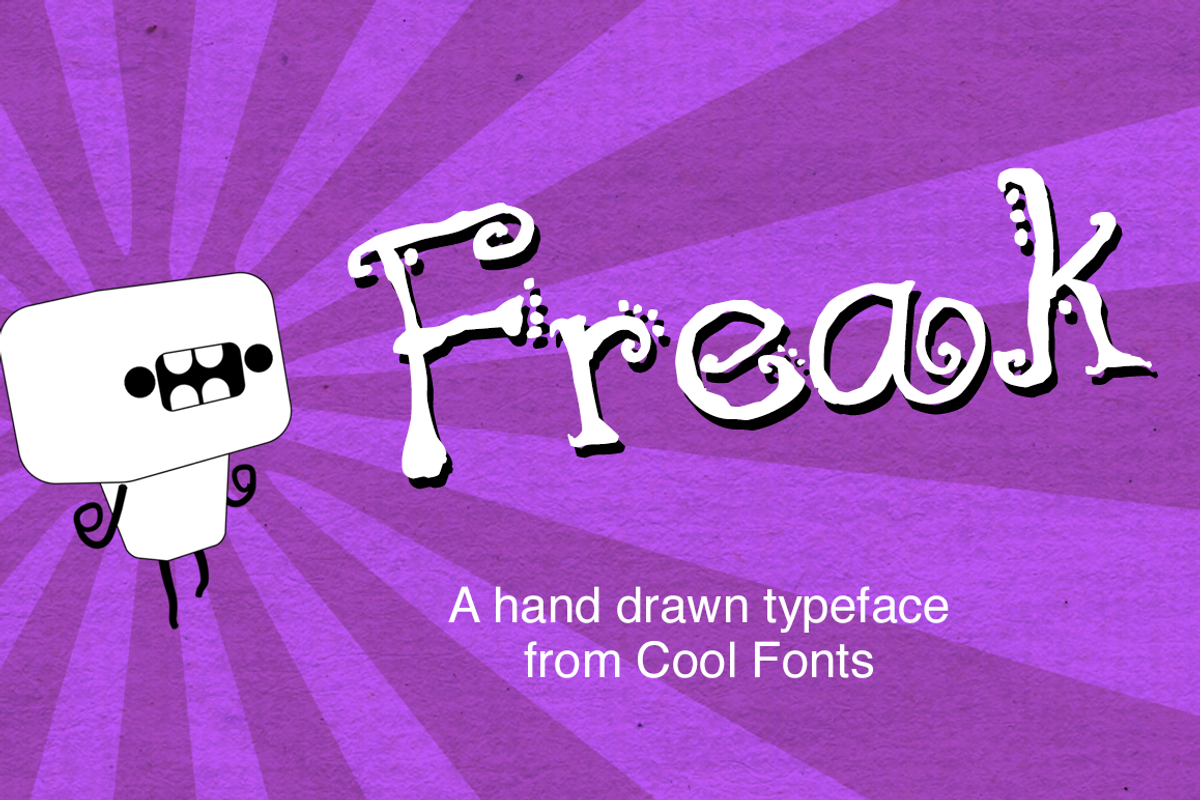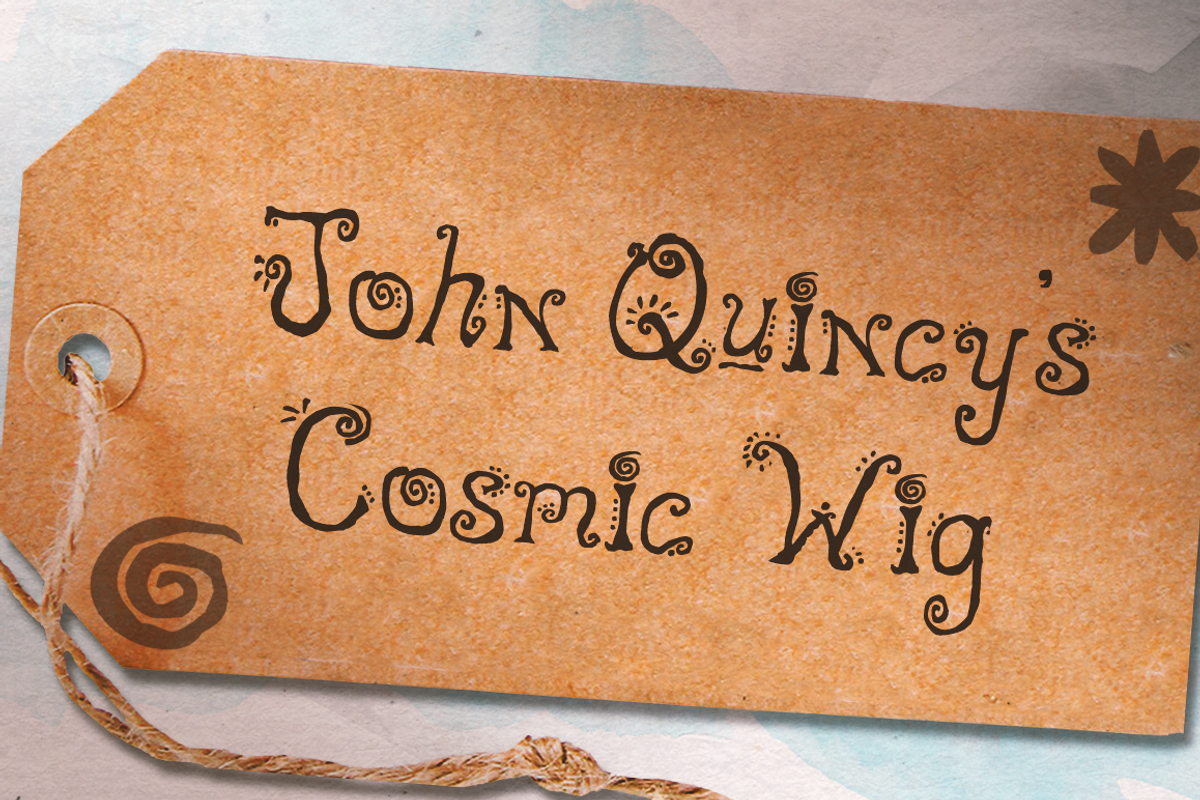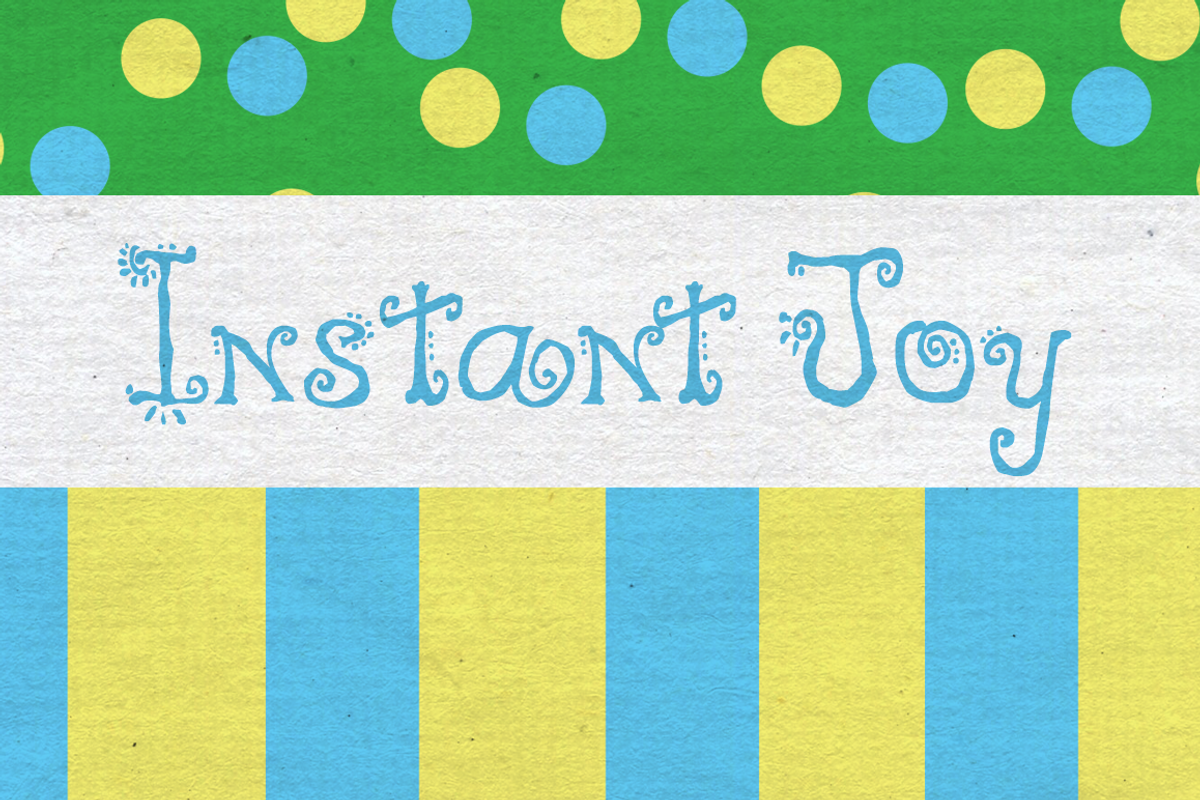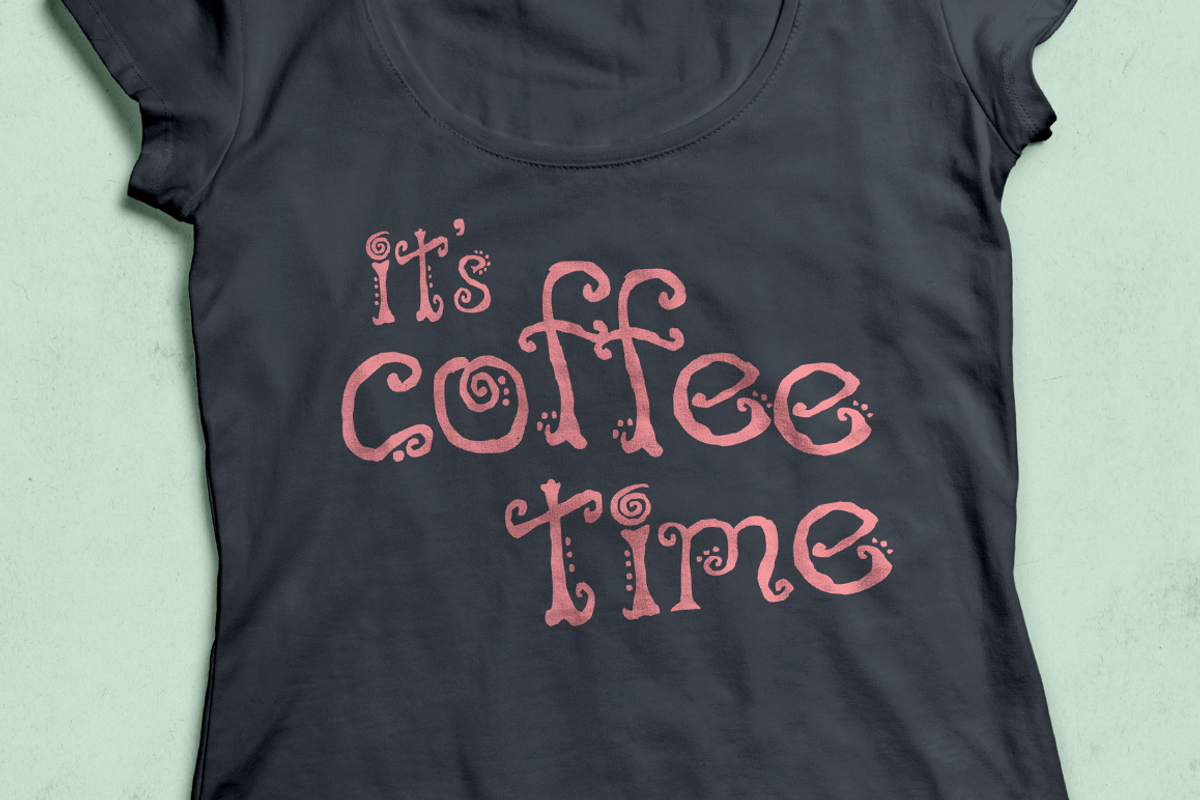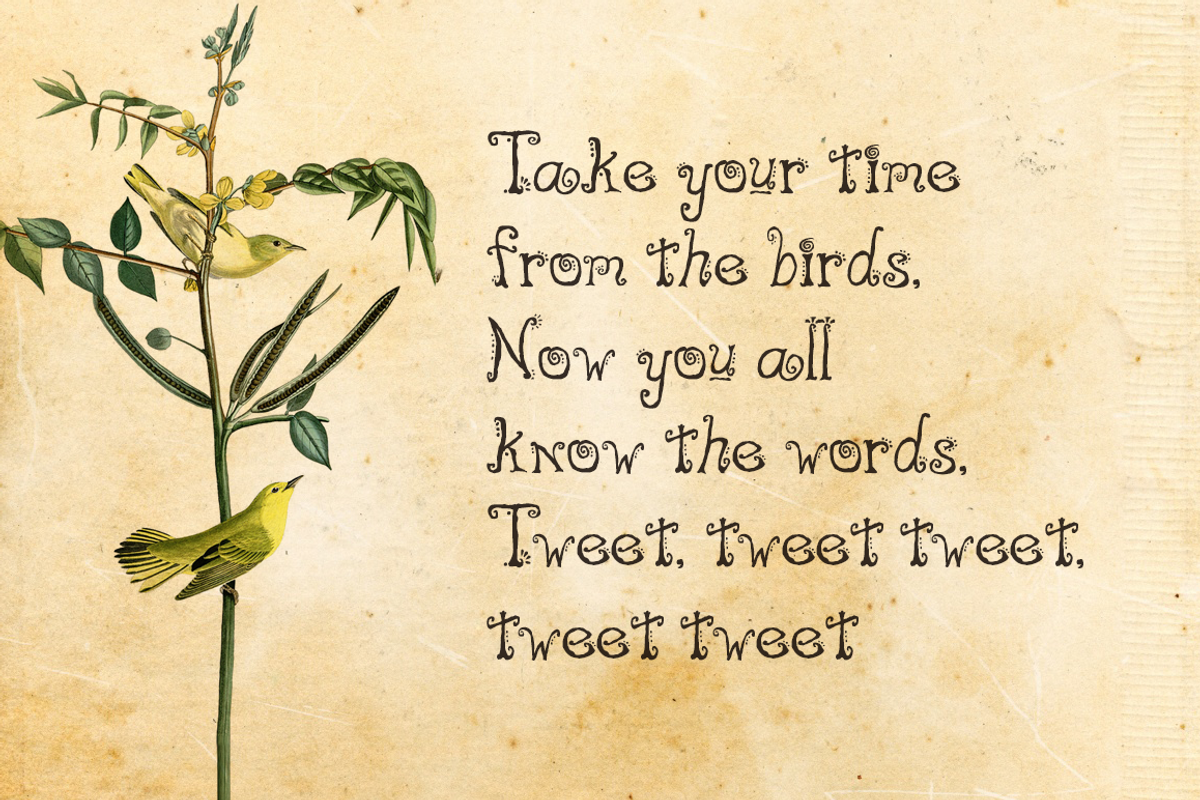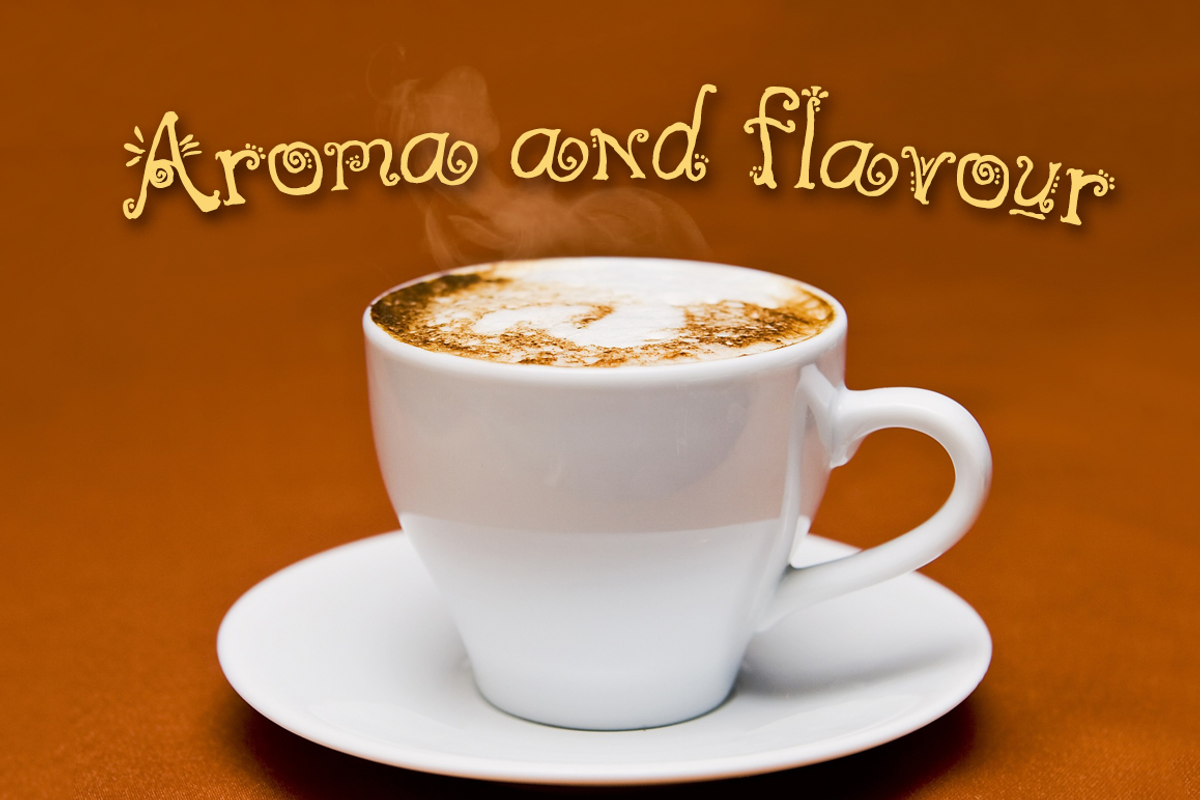
Freak
Freak is a playful handwritten typeface with lots of little doo-dads for personality. Works great on a tee shirt or for logo - anywhere you need to inject a little fun. Includes numbers, punctuation and accents.
Why Freak is worth a look
Freak by Cool Fonts fits naturally into Branding, posters, packaging, typography.